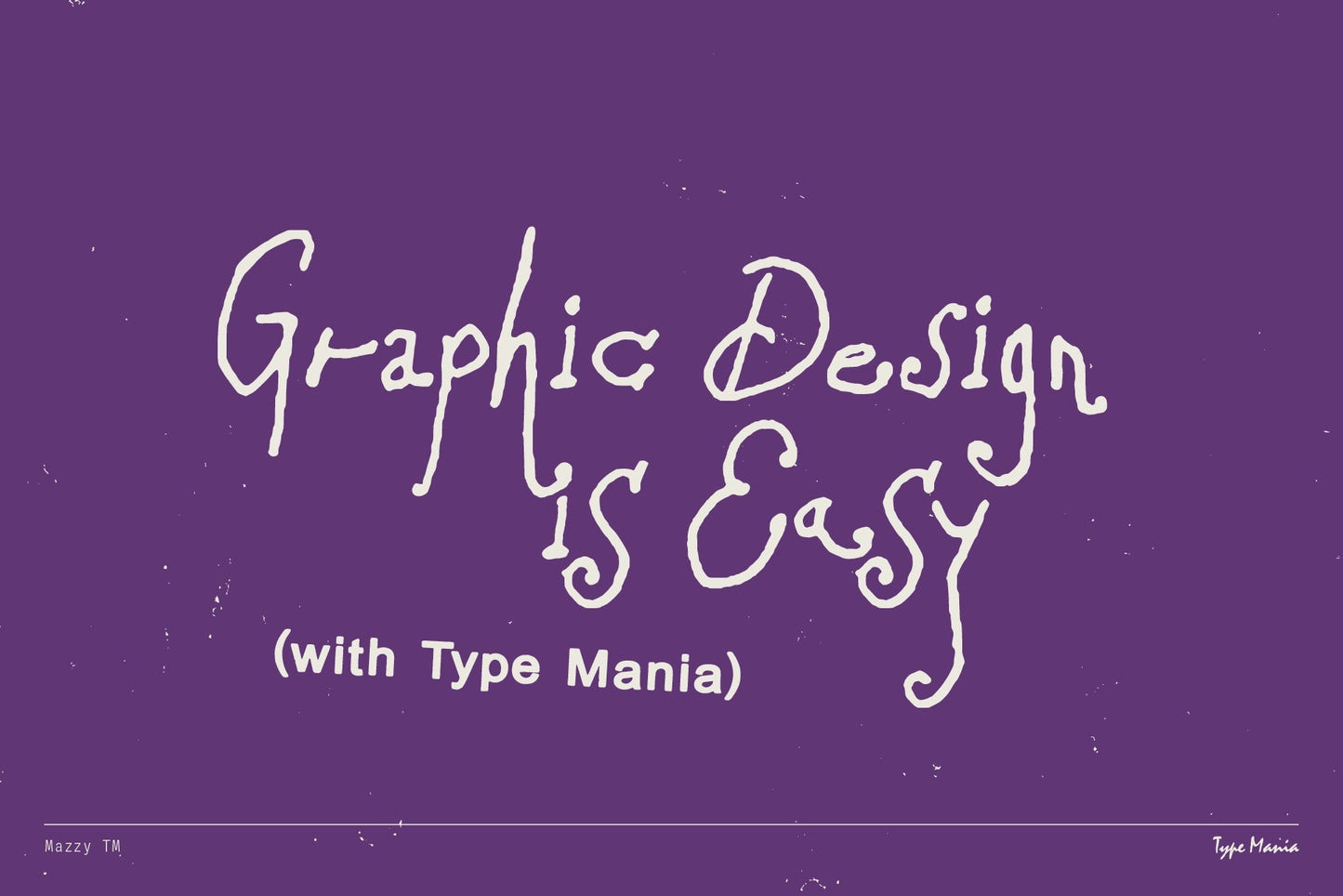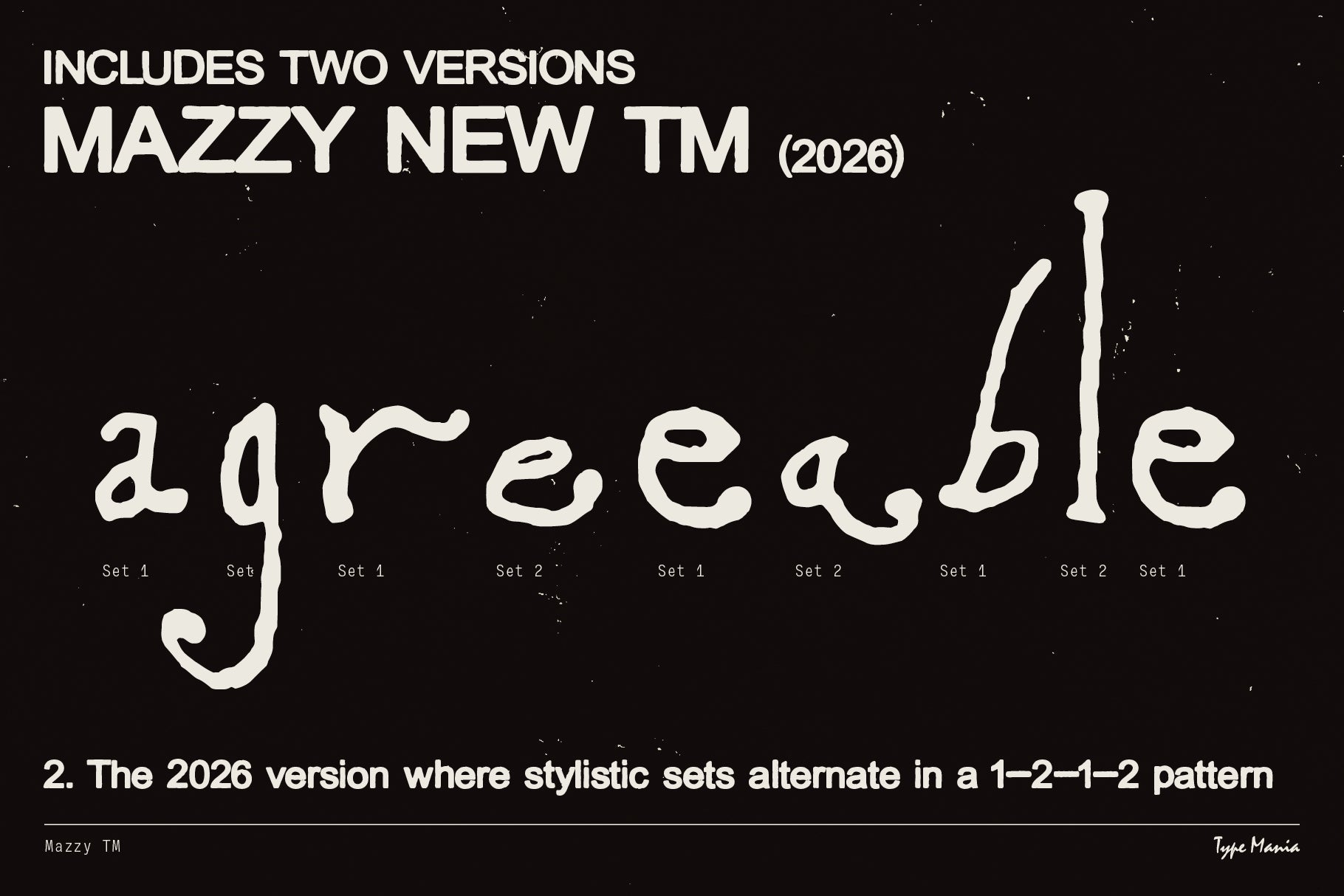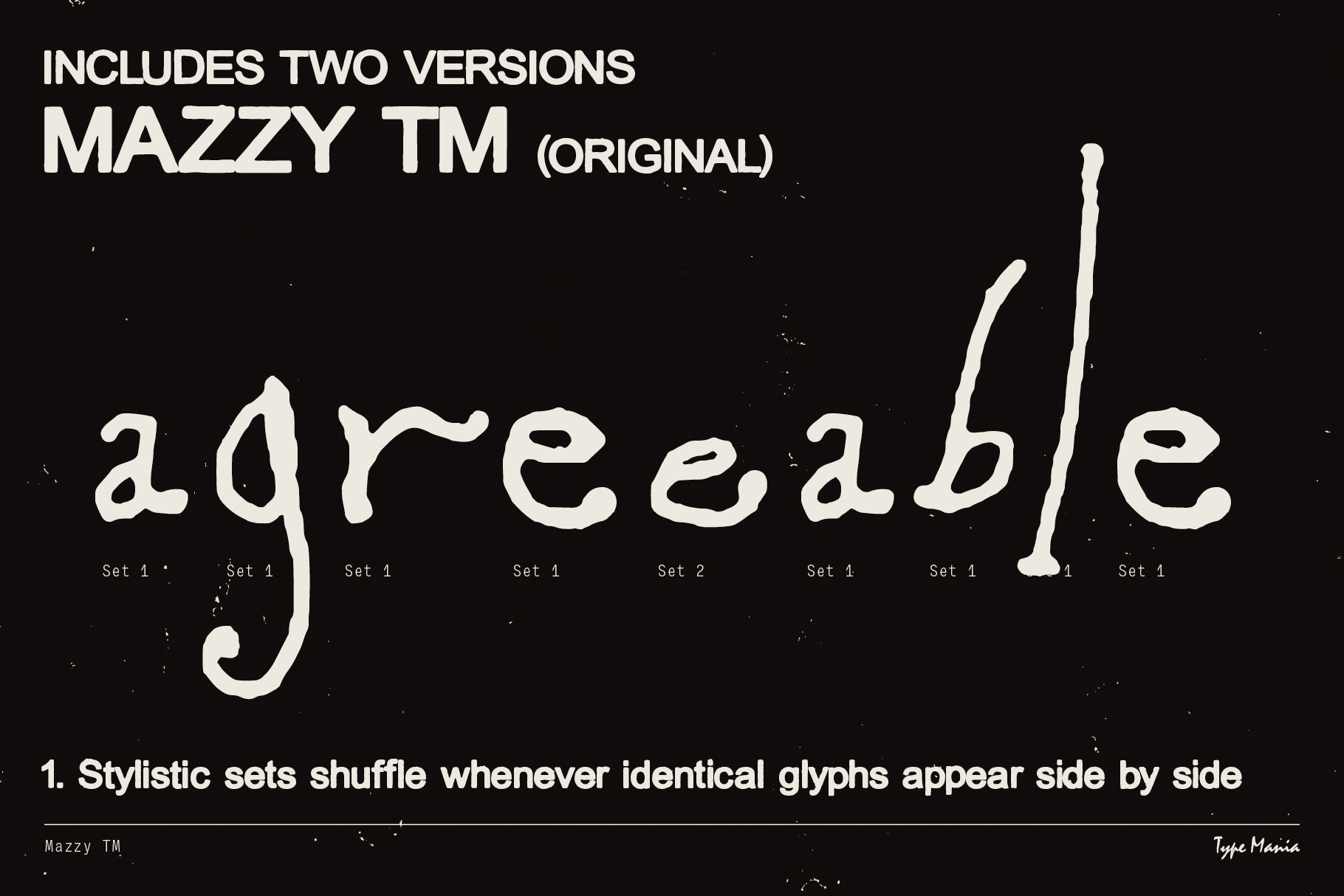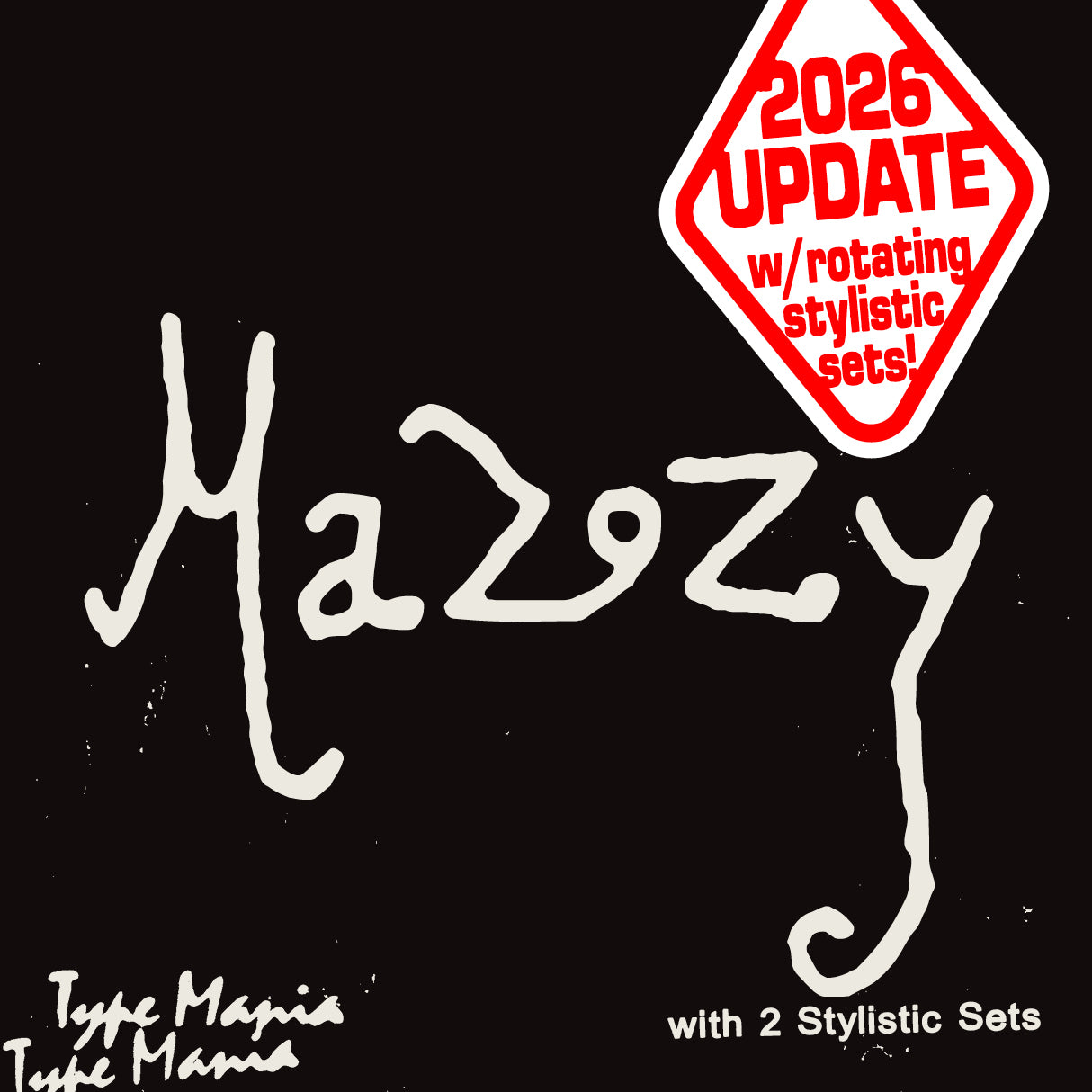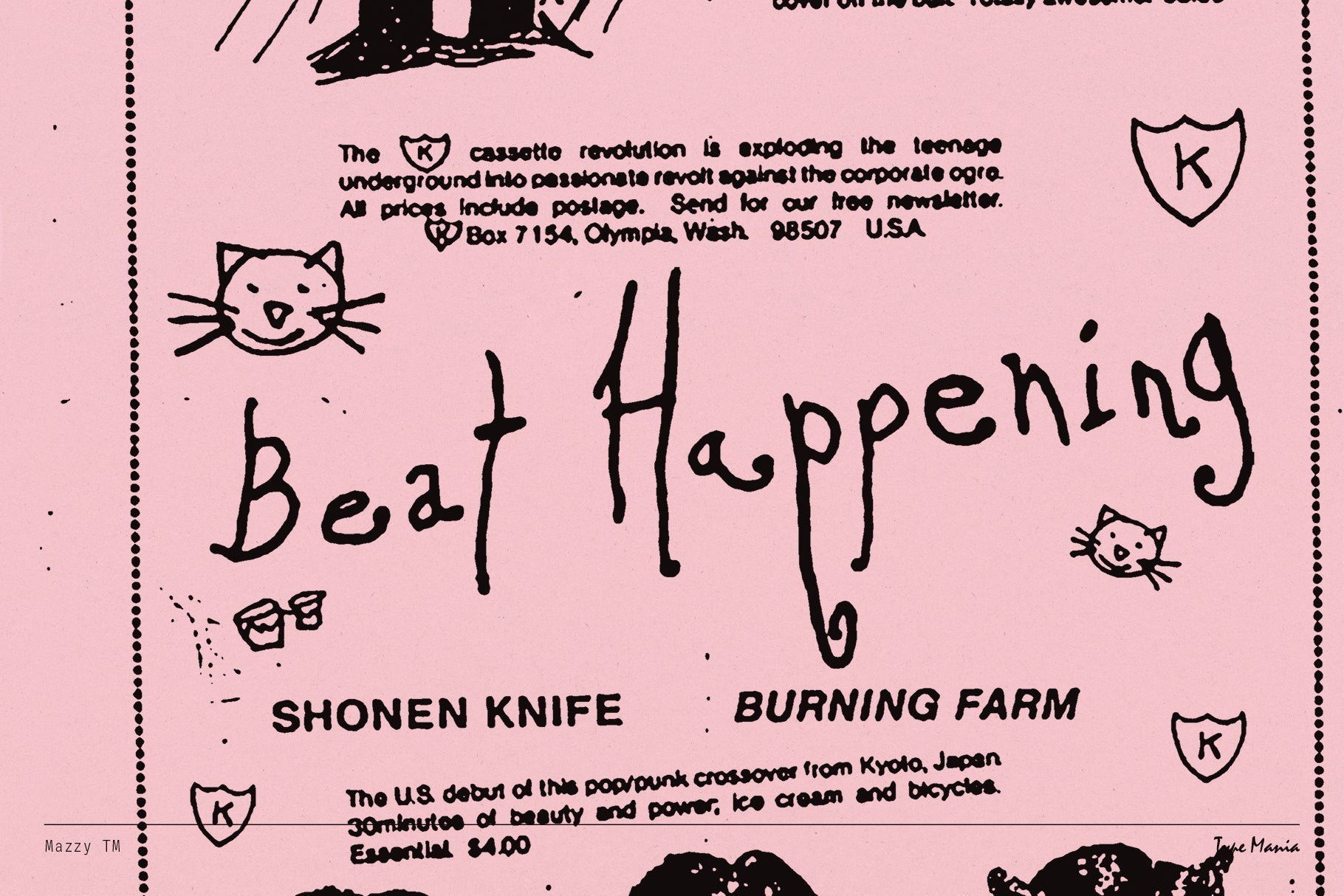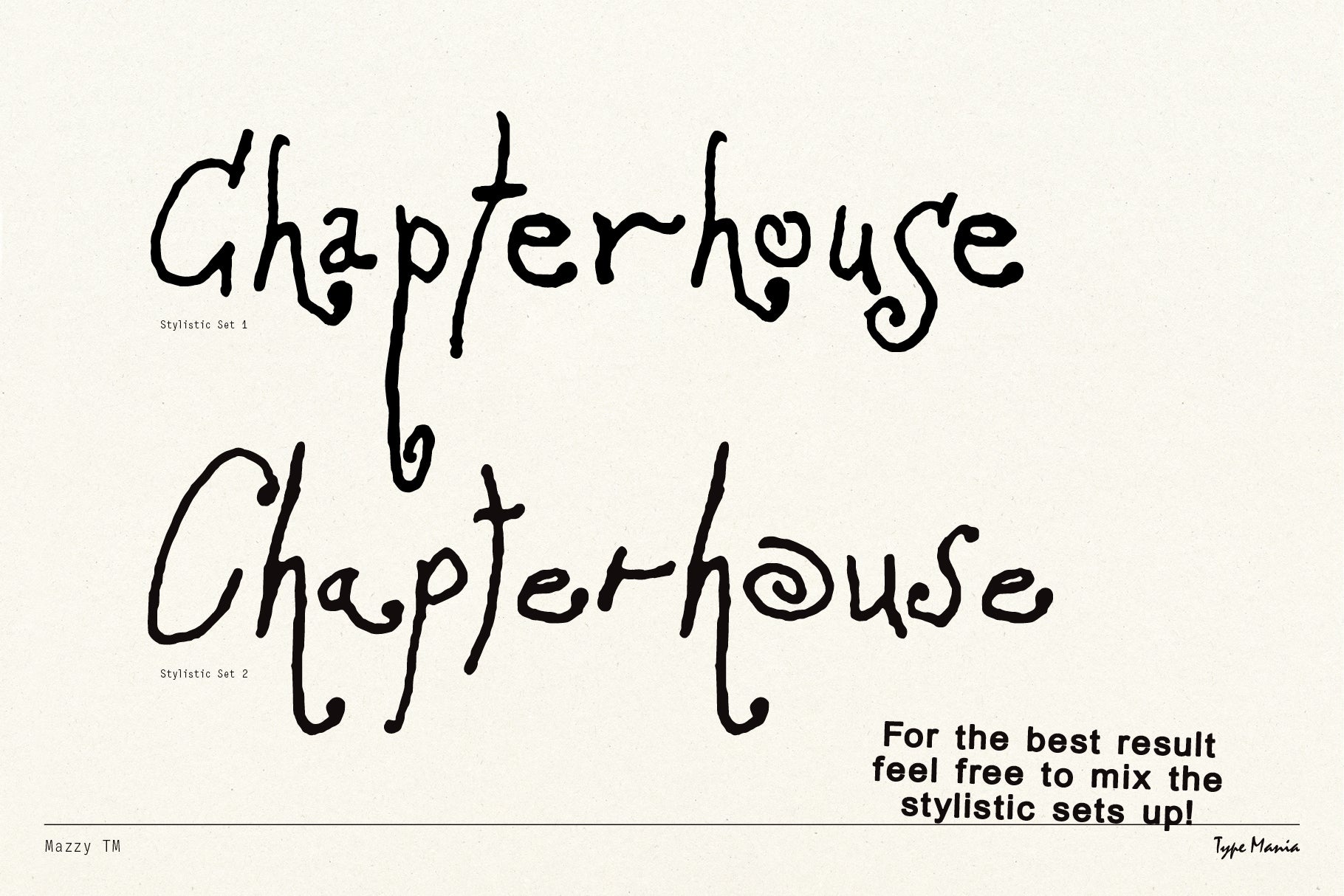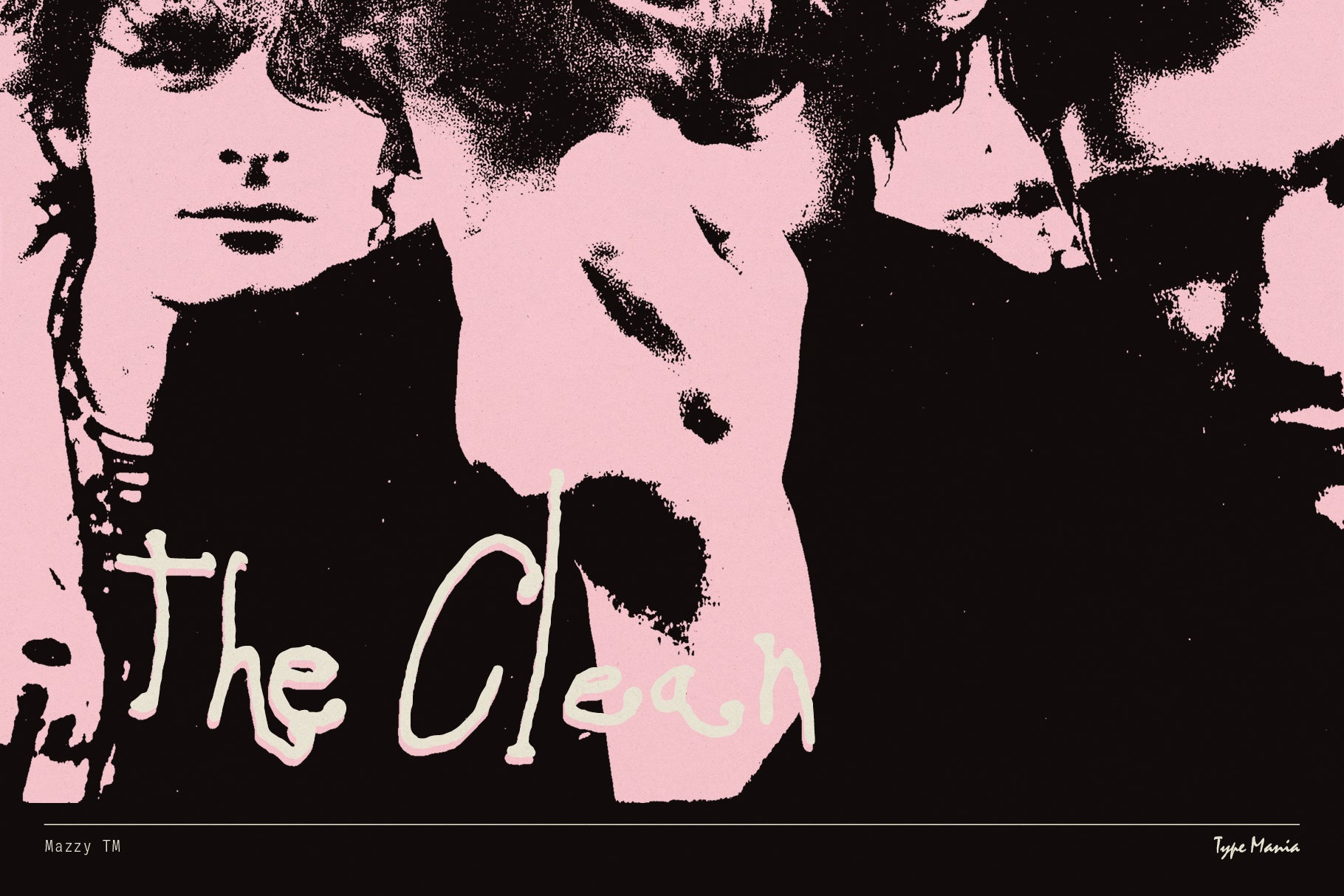
Mazzy TM
Meet Mazzy TM – the script channeling the underground spirit of the 80s and 90s alternative scene. Whether you're designing merchandise or event flyers, Mazzy TM is guaranteed to deliver.
- 2 stylistic sets
- Includes two versions of the font: 1. Stylistic sets shuffle whenever identical glyphs appear side by side, 2. A new version where stylistic sets alternate in a 1–2–1–2 pattern, when the Contextual Alternates is turned on.